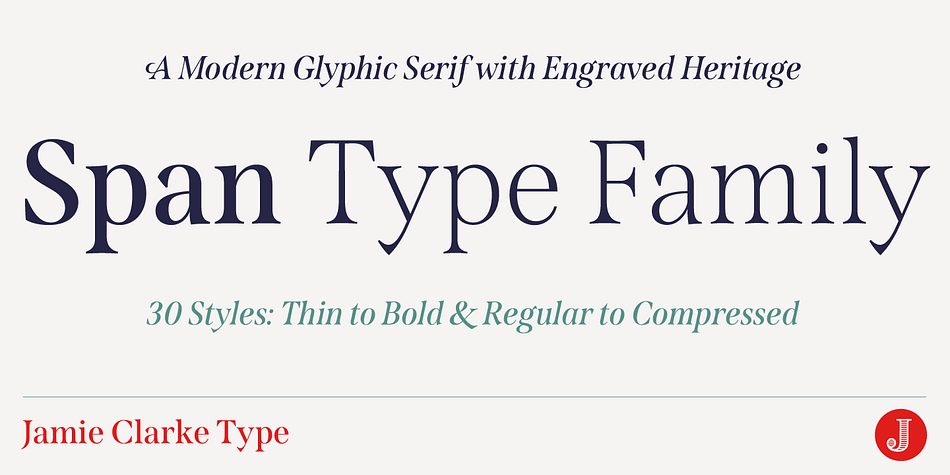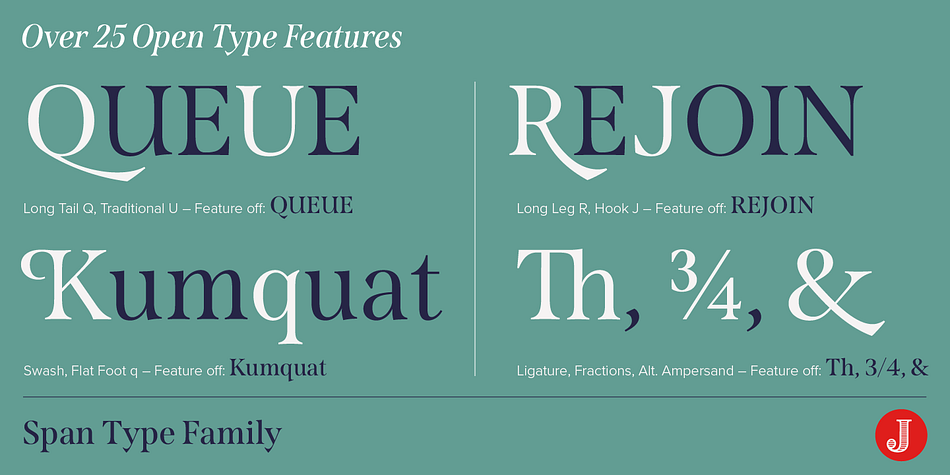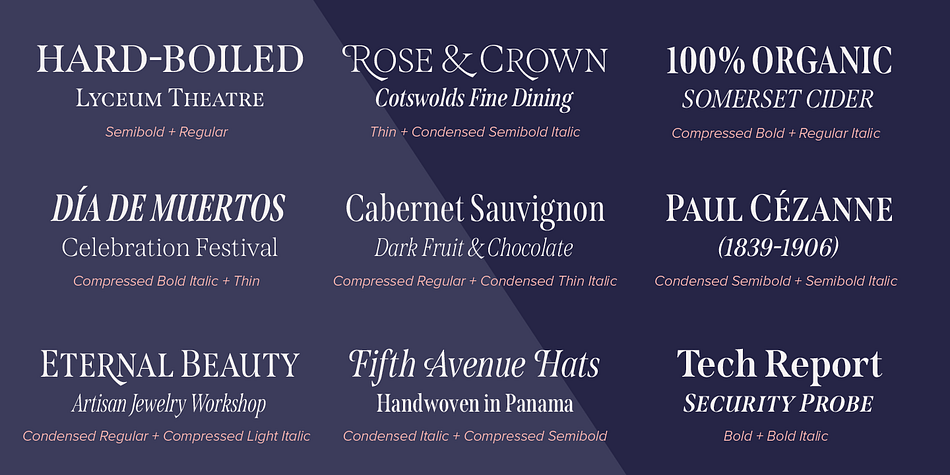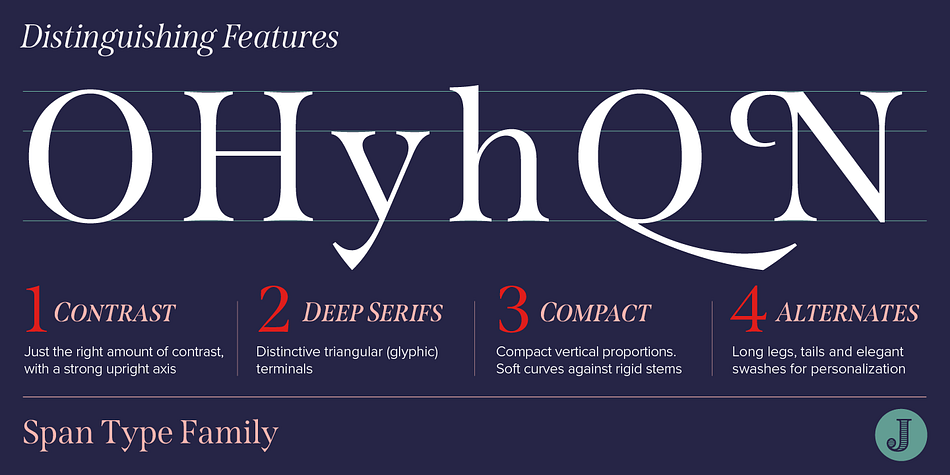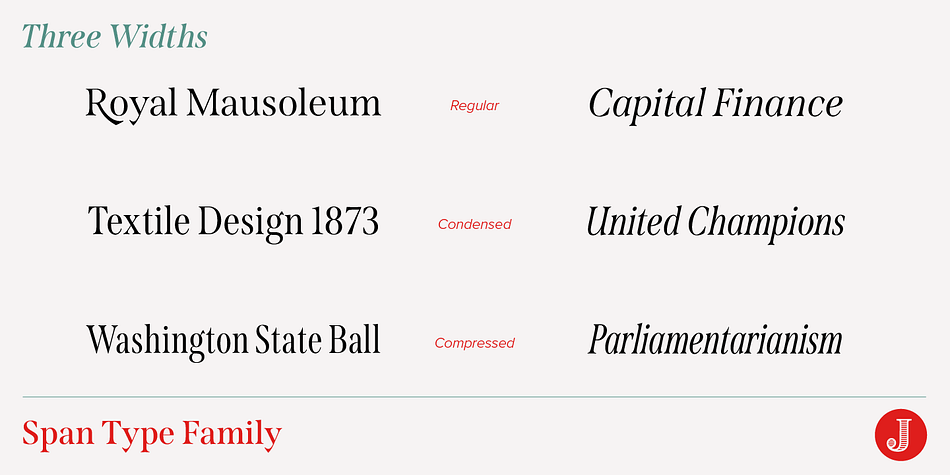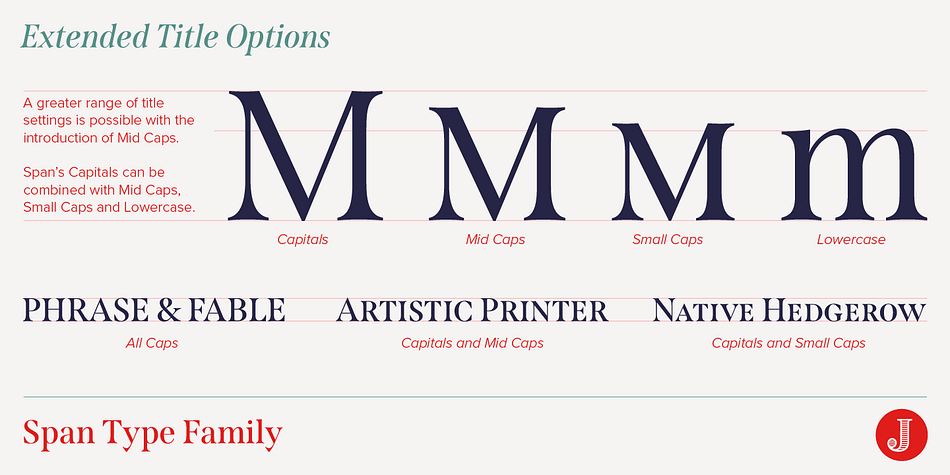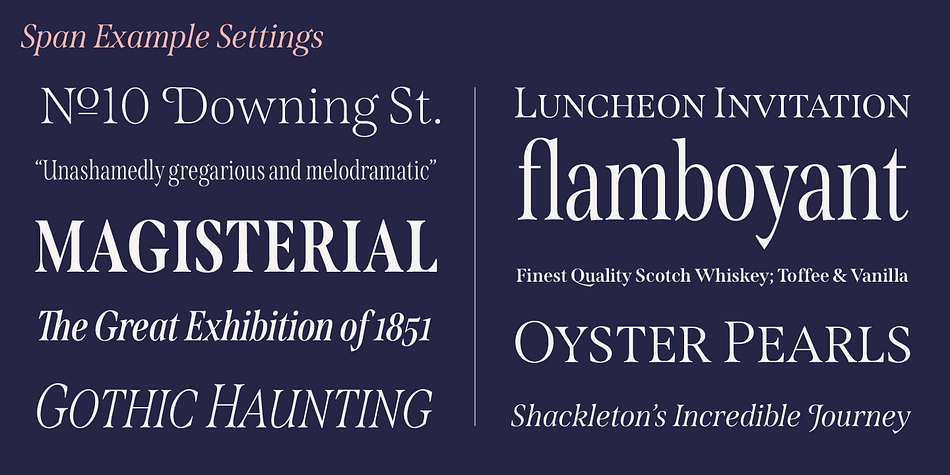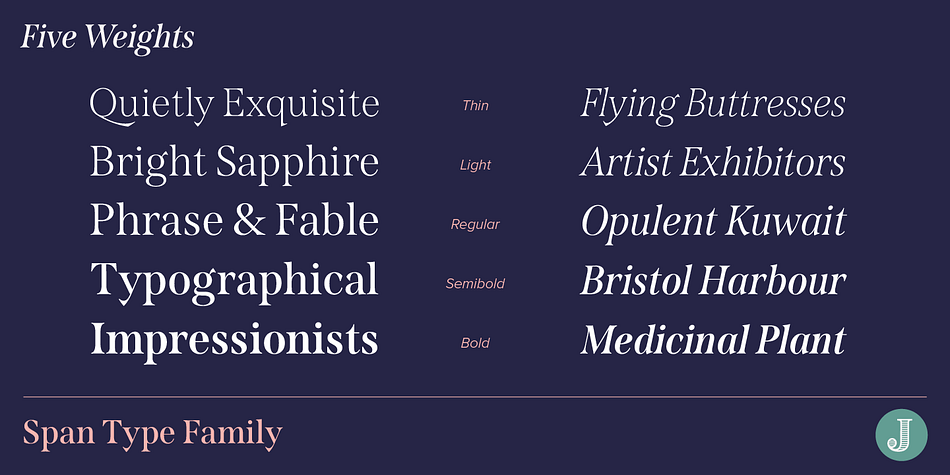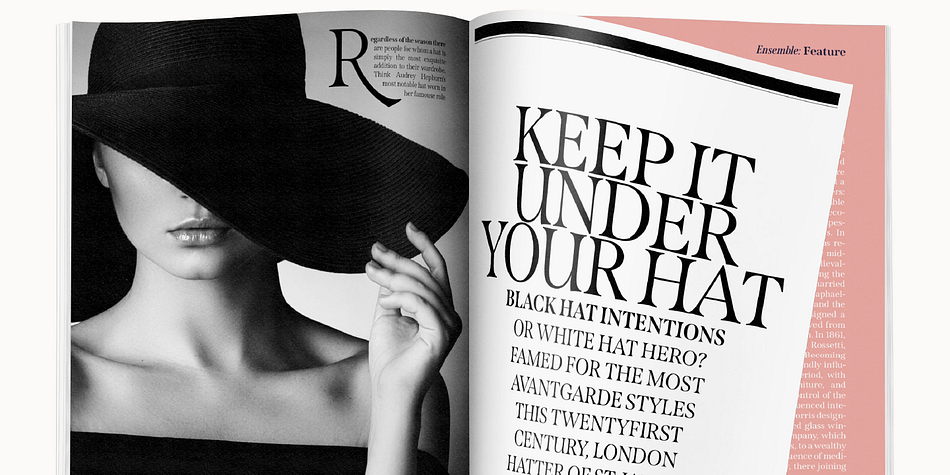
Designed by Jamie Clarke, Span is a serif font family. This typeface has thirty styles and was published by Jamie Clarke Type.
Span is a modern glyphic type family that flaunts its engraved heritage with sweeping serifs and sculptural forms. Bridging the contemporary and traditional, Span appears exuberant yet dignified. Designed primarily for luxurious headlines and titles, Span’s strong vertical stress is softened by elegant organic curves while its compact height accentuates the deep serifs.
The family offers five weights, each with three widths and italics. The condensed styles provide an invaluable advantage when designing within narrow spaces. Span’s italics strike a balance between true italics and oblique letterforms to create a change in rhythm while preserving its chiselled style.
A variety of additional features enhance Span’s typographic capabilities including restrained swashes and flourishes are available in both roman and italic styles. Span also introduces an additional set of capitals for exceptional typographic control over uppercase settings. ‘Mid Caps’ sit midway between full-height capitals and lowercase letters and extend Span’s title setting options to All Capitals, Capitals with Mid Caps and Capitals with Small Caps.
Choose Span and take full control over your title settings and produce classic typography with statuesque poise.
• 30 styles comprised of 5 weights, 3 widths and accompanying italics
• Additional features include alternate characters, swashes, Small Caps and Mid Caps